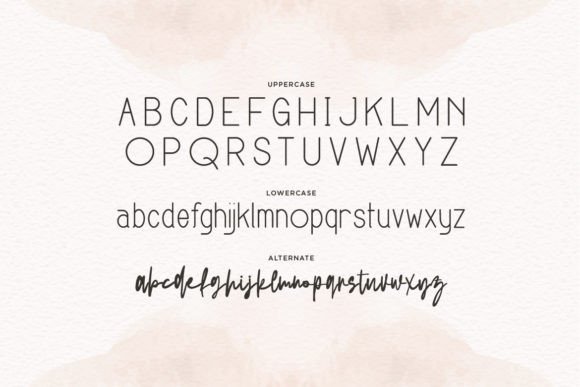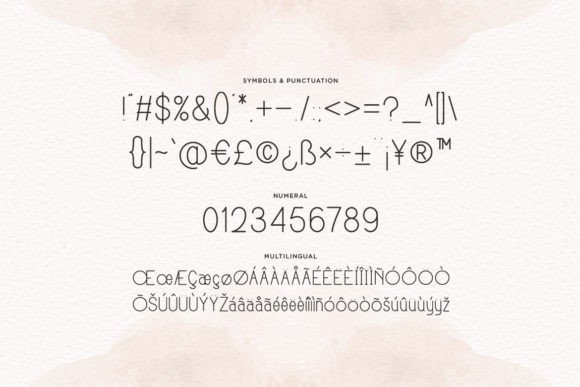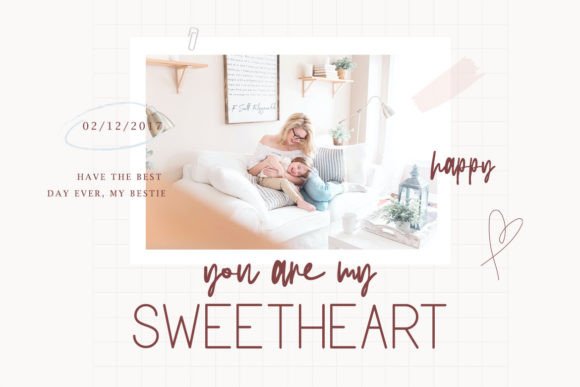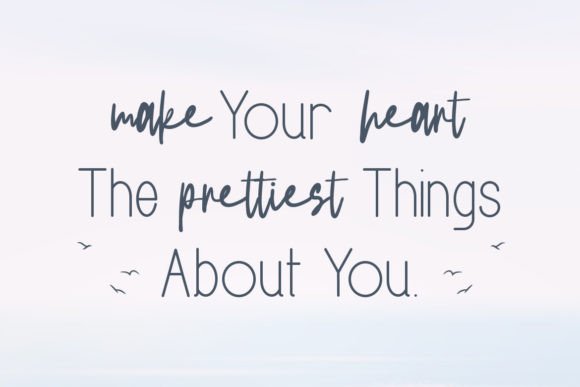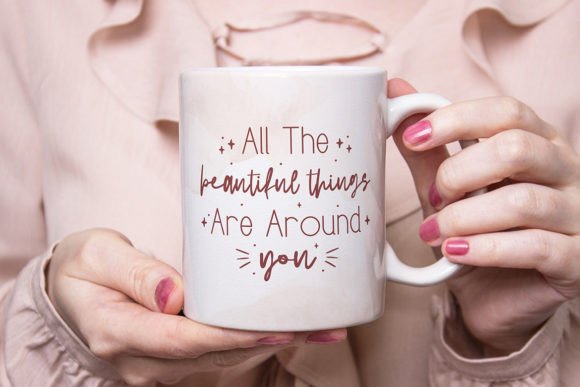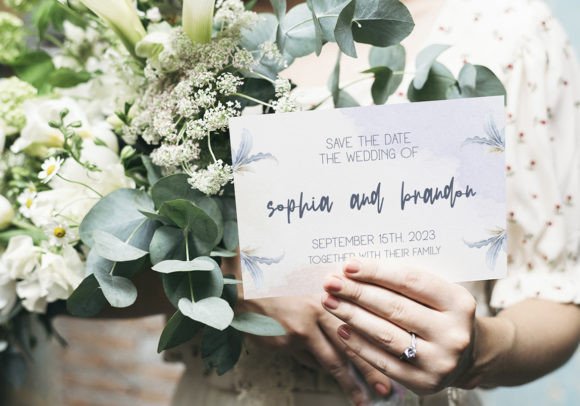
The Perfect Font for Your Creative Masterpiece
Have you ever sat in front of your computer, staring blankly at a blank page, trying to come up with the perfect font to match your creative vision? We’ve all been there. But what if you had the perfect font at your fingertips, one that could elevate any creation and make it truly stand out?
Enter Devinland Lovecocky Font, a stunning mixed handwritten and script font that’s sure to become your go-to choice for any project. With its versatility and unique charm, this font is an incredible asset to any designer’s library. Whether you’re working on a romantic wedding invitation or a fun children’s book, Devinland Lovecocky Font has the potential to bring your design to life in a way that’s both beautiful and meaningful.
Devinland Lovecocky Font Key Features
- Font Family: Devinland Lovecocky Font
- Font Size: 200-300 glyphs
- Unique Characteristics: Hand-drawn, cursive script with a mix of vintage and modern elements, featuring flourishes and swashes.
- Language Support: Latin-based languages, including English, Spanish, French, German, Italian, and more.
Devinland Lovecocky Font Review
I recently had the chance to work with the Devinland Lovecocky Font, and I must say it’s been an interesting experience. Here are my thoughts:
- The font’s playful, handwritten feel adds a unique touch to any design project.
- The Lovecocky Font is highly customizable, allowing designers to adjust the letter spacing, line height, and even the font’s slant to suit their needs.
- The font is relatively easy to read, even at smaller font sizes, making it suitable for body text as well as headlines.
- The font’s overall quality can be inconsistent, with some letters appearing more refined than others.
- The font’s playfulness can sometimes tip into kitsch, which may not be suitable for all design projects.
- The font’s compatibility with certain font rendering engines can be hit-or-miss, resulting in inconsistent display across different platforms.
Overall, I’d say the Devinland Lovecocky Font is a decent addition to any designer’s toolkit. While it has its limitations, it can add a unique touch to the right project. With some careful selection and customization, I think this font could be a real showstopper.
Devinland Lovecocky Font Practical Application Guide
Tips for Getting the Most Out of Devinland Lovecocky Font
Experiment with different font sizes and colors to achieve the desired effect. Use Devinland Lovecocky Font for titles, headings, and emphasis.
Devinland Lovecocky Font is ideal for creative projects, such as posters, flyers, and social media graphics. Use it to add a touch of whimsy and personality to your designs.
Alternatives to Devinland Lovecocky Font for Designers
The Great Vibes Font is a beautiful, elegant script font perfect for creating a sense of sophistication and luxury. It’s ideal for use in high-end branding, wedding invitations, and special occasions. Compared to Devinland Lovecocky Font, Great Vibes Font has a more refined and polished look, making it suitable for formal events and upscale designs.
Carolyna Pro Font is a modern script font that exudes elegance and sophistication. It’s perfect for use in fashion branding, packaging design, and editorial content. Compared to Devinland Lovecocky Font, Carolyna Pro Font has a more contemporary and edgy feel, making it ideal for designers who want to create bold and eye-catching designs.
The Dancing Script Font is a playful and whimsical script font that’s perfect for creating a sense of fun and excitement. It’s ideal for use in children’s branding, party invitations, and creative projects. Compared to Devinland Lovecocky Font, Dancing Script Font has a more carefree and lively feel, making it suitable for designers who want to create energetic and engaging designs.
The Alex Brush Font is a beautiful, handwritten font that’s perfect for creating a sense of warmth and intimacy. It’s ideal for use in personal branding, stationery design, and editorial content. Compared to Devinland Lovecocky Font, Alex Brush Font has a more personal and handwritten feel, making it suitable for designers who want to create genuine and relatable designs.